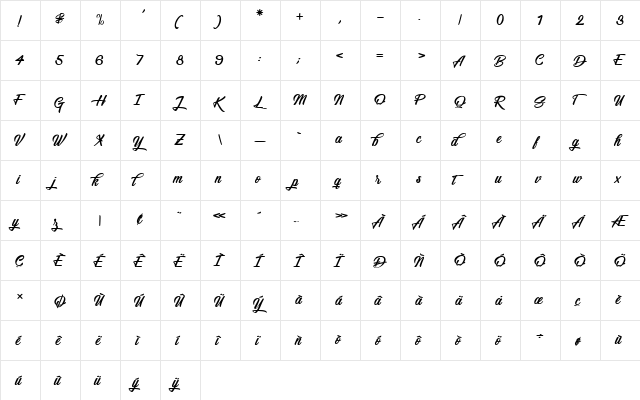
Snowboarding Only Regular
Design Context for Snowboarding Only Typeface
Snowboarding Only is a composed and adaptable typeface that performs quietly and consistently across a wide range of design contexts.